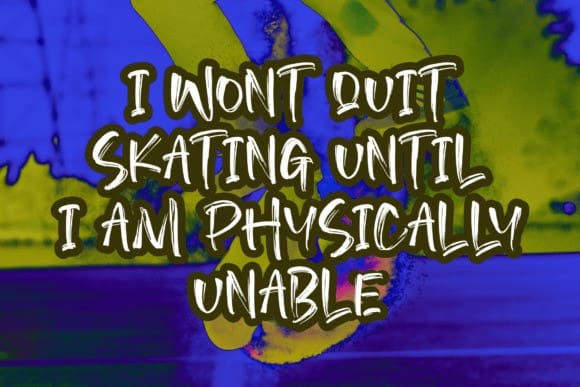
Hangover Brush Typeface
Hangover Brush Typeface is a handwritten brush script font that looks and feels like it was written on a marker board. Perfect for greeting cards, invitations, and motivational quotes, this font should help you express all of your best messages!